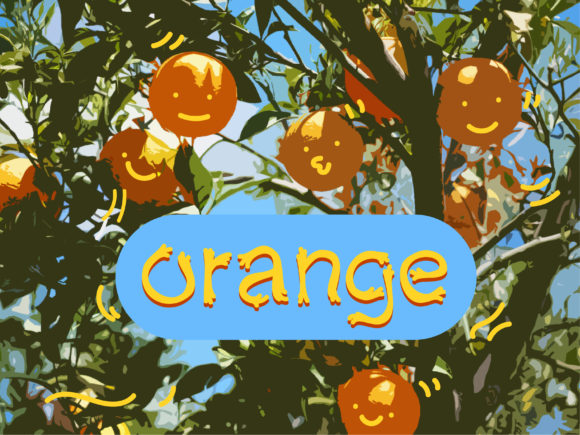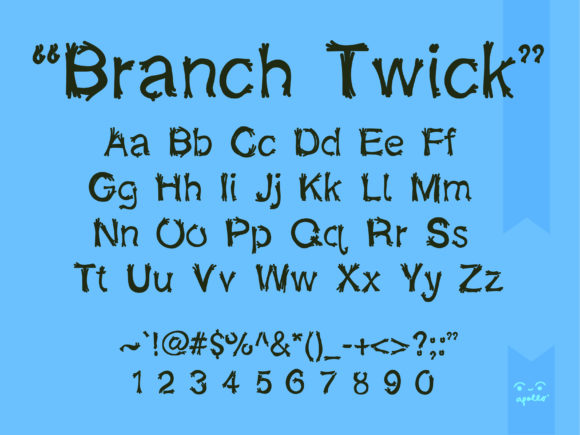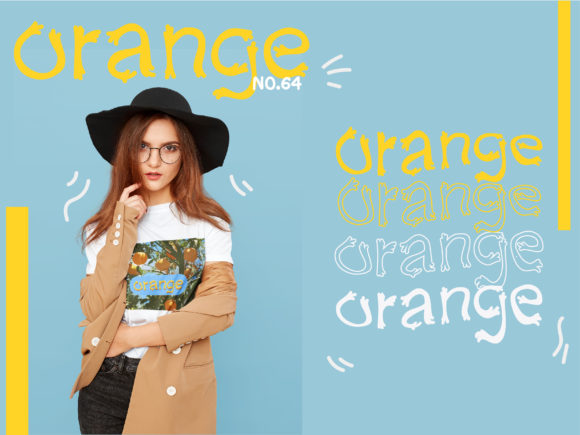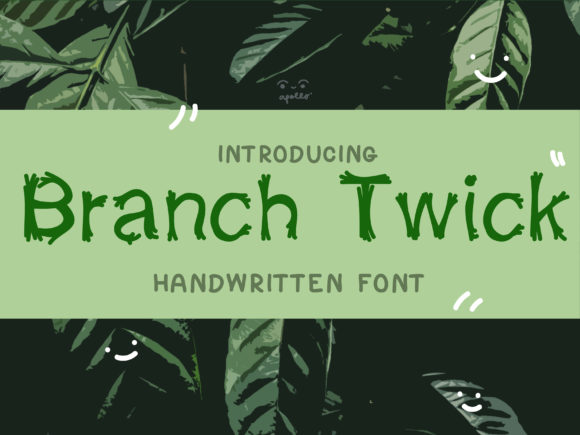
Introducing Branch Twick Font: The Ultimate Display Font for Creative Projects
Are you on the hunt for a font that can elevate your creative projects to the next level? Look no further than Branch Twick Font! This cool and neat display font is perfect for a wide range of applications, from crafts and digital design to presentations and greeting cards. In this article, we’ll dive into the world of Branch Twick Font and explore its features, benefits, and uses.
A Font for Every Occasion
Branch Twick Font is a versatile typeface that can be used for various creative projects. Its unique and stylish design makes it an excellent choice for:
- Crafts: Add a personal touch to your handmade crafts, such as scrapbooking, card making, and DIY projects.
- Digital Design: Use Branch Twick Font to create stunning social media graphics, blog headers, and website titles.
- Presentations: Make your presentations stand out with this eye-catching font, perfect for titles, headings, and emphasis text.
- Greeting Cards: Create beautiful and heartfelt greeting cards for special occasions, such as birthdays, weddings, and holidays.
What Makes Branch Twick Font Special?
So, what sets Branch Twick Font apart from other display fonts? Here are some of its key features:
- Unique Design: Branch Twick Font boasts a distinctive, hand-crafted design that adds a touch of personality to any project.
- Highly Readable: Despite its decorative nature, this font remains highly readable, even at smaller sizes.
Tips for Using Branch Twick Font
To get the most out of Branch Twick Font, here are some expert tips:
- Pair it with Other Fonts: Combine Branch Twick Font with complementary fonts to create visually appealing contrast.
- Experiment with Colors: Try out different color schemes to find the perfect match for your project.
- Play with Sizes: Use varying font sizes to create hierarchy and emphasis in your design.
- Add Texture and Patterns: Incorporate textures and patterns to add depth and interest to your design.
Why Designers and Crafters Love Branch Twick Font
Branch Twick Font has quickly become a favorite among designers and crafters. Here’s why:
- Time-Saving: This font saves time and effort, allowing you to focus on the creative aspects of your project.
- Consistency: Use Branch Twick Font across multiple projects to maintain a consistent visual brand.
- Inspiration: This font’s unique design can spark inspiration and creativity, helping you to think outside the box.
| Font Name | Branch Twick Font |
| Author | Apollo no.64 |
In conclusion, Branch Twick Font is an exceptional display font that can elevate your creative projects to new heights. Its versatility, readability, and unique design make it an excellent choice for designers and crafters alike. Whether you’re working on a craft project, digital design, presentation, or greeting card, Branch Twick Font is sure to become your go-to font. So why wait? Give it a try today and discover the endless possibilities!